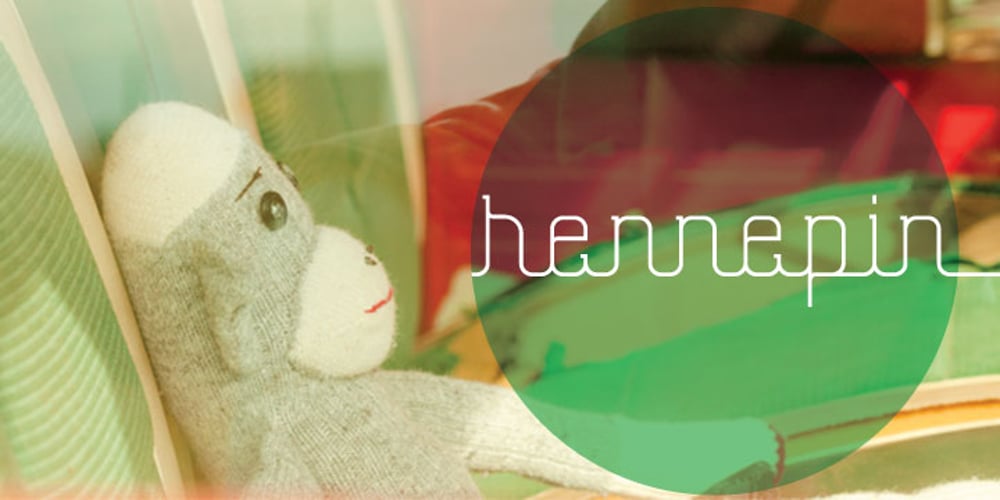
Hennepin Font Family was designed by Joshua Grzybowski and published by Josh Grzybowski. Hennepin contains 3 styles and family package options. Hennepin derives from a bridge, a street and a county that share the same name in Minneapolis, MN. It is a serif font comprised of three agile weights: regular, light, and extra light. The character set contains typical OpenType features in addition to small caps, and old style numbers, but most importantly, it embraces stylistic alternatives that unite and complete this font.